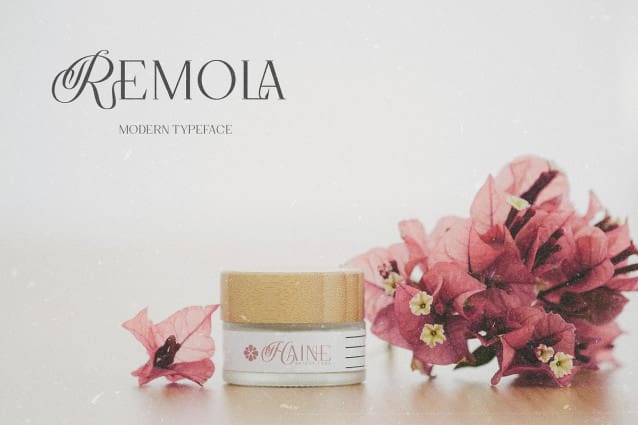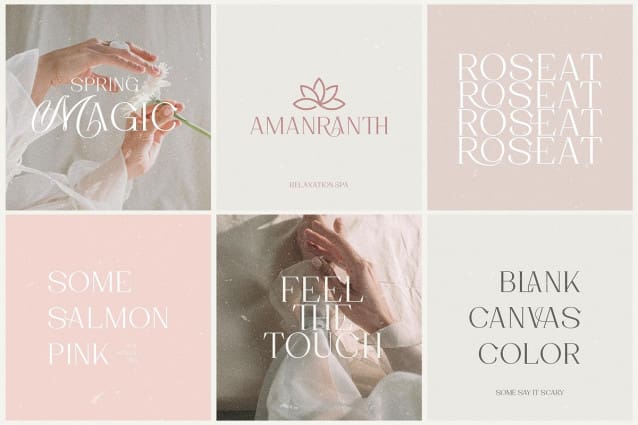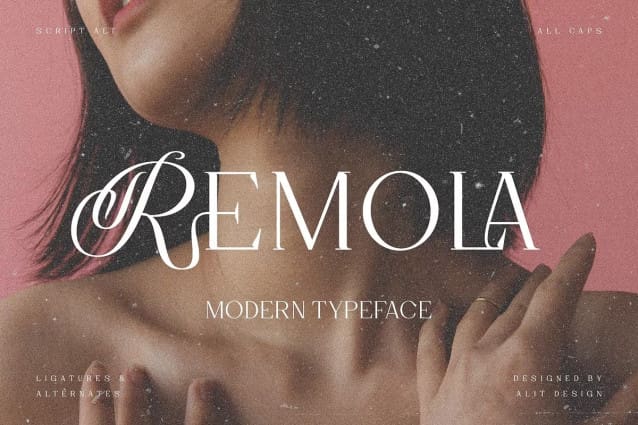
Remola Font
Remola Font is designed by combining an elegant script font with a simple and charming serif font style. This font has a modern serif style combined with elegant script-style letters that make the REMOLA font look different and unique from the fonts you have on your element design collection.
REMOLA is perfect for magazine cover designs, brochures, flyers. Instagram ads, Canva Design and so on with unique and modern concepts. besides that this font is very easy to use both in design and non-design programs because everything changes and glyphs are supported by Unicode (PUA).
The “REMOLA“contains 562 glyphs with many unique and interesting alternative options.